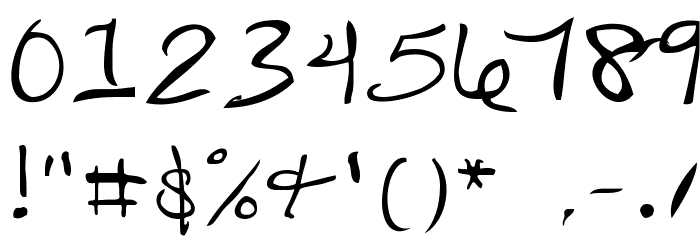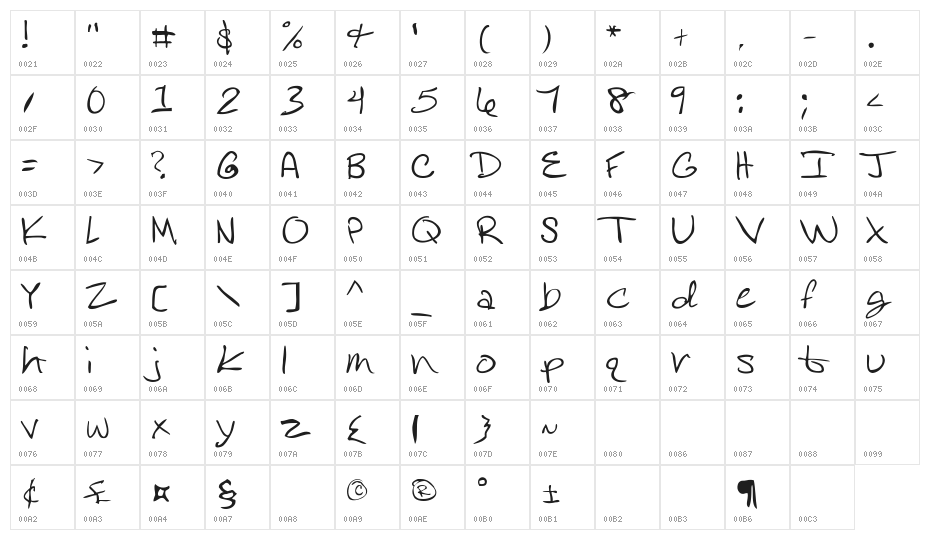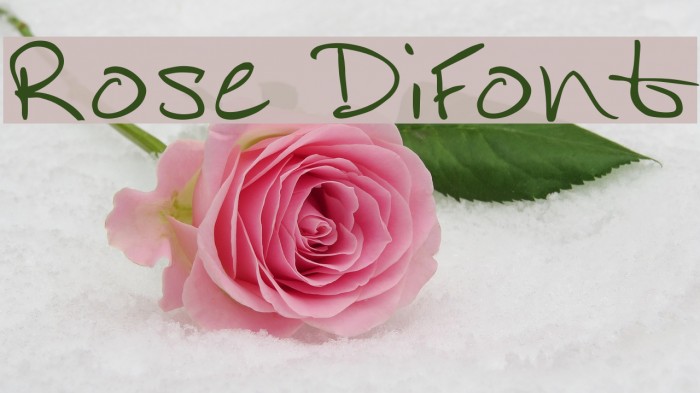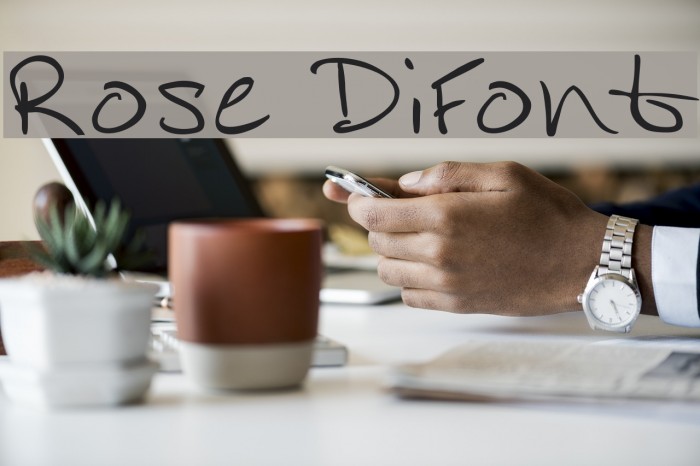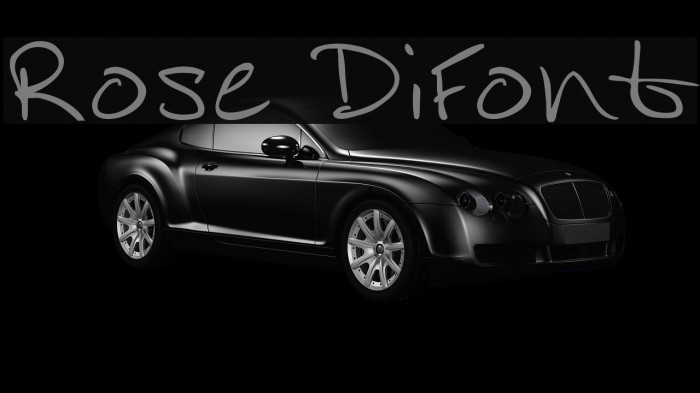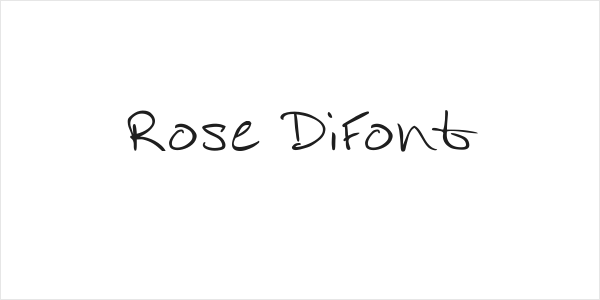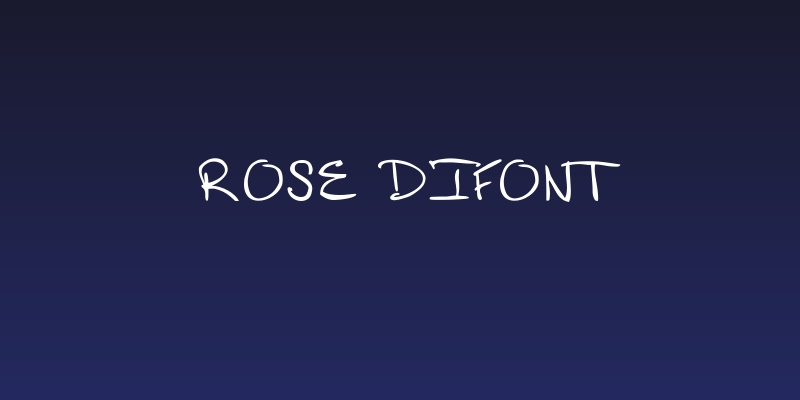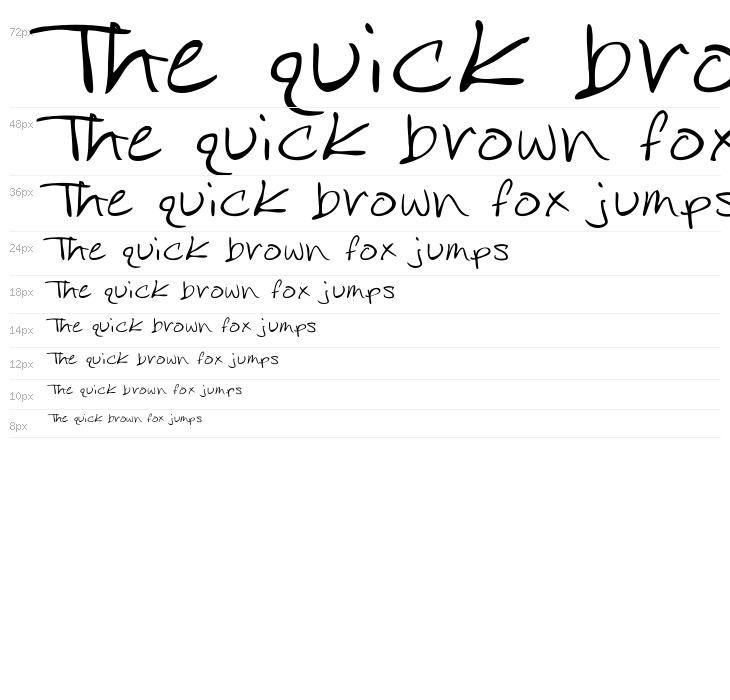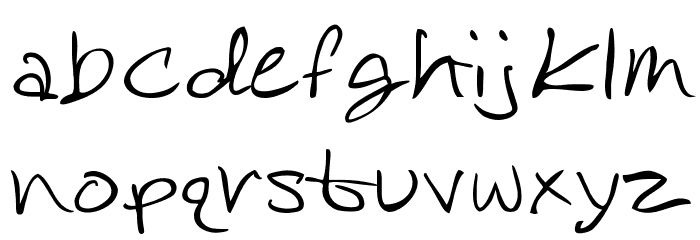
Rose DiFont Font
Rose DiFont Description
This font exhibits a playful and casual handwritten style, characterized by its fluid and slightly irregular strokes. The uppercase letters are bold and expressive, while the lowercase letters maintain a consistent flow, giving a sense of movement and spontaneity. The numerals are distinct and easy to read, with a slight slant that complements the overall informal aesthetic. Special characters are creatively designed, adding to the font's unique personality. This font is ideal for projects that require a personal touch, such as invitations, greeting cards, or creative branding.